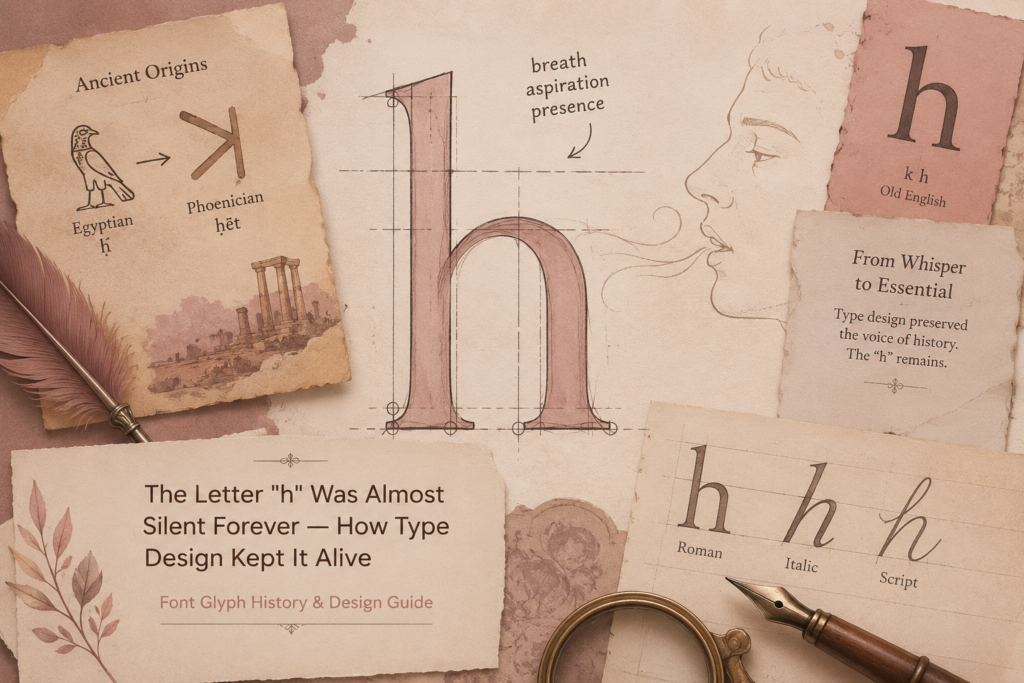
“h” has an odd reputation: in plenty of languages and even in some English words, it barely makes a sound at all. Yet visually, it’s one of the most stable, structurally simple letters in the entire lowercase alphabet — a shape that’s changed remarkably little in over a thousand years of writing.
A Short History of “h”
“h” traces back to the Phoenician letter heth, believed to represent a fence, a wall, or possibly a courtyard enclosure — accounts vary, but the idea of a barrier or enclosed structure recurs across interpretations. In Phoenician and early Semitic languages, the letter represented a guttural, breathy consonant sound produced deep in the throat.
When the Greeks adopted the letter, something unusual happened: in most Greek dialects, that guttural sound didn’t really exist, so the letter’s original consonant value became unstable. Eventually, in the Greek alphabet used to write Ionic Greek, the letter was repurposed entirely to represent a long “e” vowel sound and renamed eta — a striking transformation, since it moved from consonant to vowel. Western Greek dialects, on the other hand, kept a version of the letter functioning closer to its original consonant role, and it was this western tradition that the Etruscans and then the Romans inherited, which is why Latin “H” ended up as a consonant rather than a vowel.
The Romans kept the letter’s basic shape — two vertical strokes joined by a horizontal crossbar — largely unchanged, and it has stayed remarkably consistent ever since. Lowercase “h” emerged the way most lowercase letters did, through medieval scribes writing quickly by hand, but visually it required very little simplification from the capital form. The main change was extending one of the two vertical strokes upward into a full ascender while keeping the other at x-height, transforming the boxy capital into the taller, more flowing shape used in running text.
Anatomy of a Lowercase “h”
Lowercase “h” consists of an ascender — the tall vertical stroke rising above the x-height — followed by a shoulder, a curved stroke that branches off partway down the ascender, and a stem, the shorter vertical stroke at x-height that the shoulder connects into.
The shoulder is the most expressive part of the letter and the one that varies most between typefaces. In many serif designs, it curves smoothly out of the ascender like a small arch; in more geometric sans-serifs, it can be a tighter, more angular curve, sometimes almost a straight diagonal. The exact point where the shoulder branches off the ascender, and how far it extends before dropping down into the stem, both affect how open or compact the letter feels.
“h” shares this same ascender-plus-shoulder-plus-stem structure with “m” and “n,” making these three letters a closely related family in type design. In fact, “n” is often treated as a truncated version of “h” — remove the ascender, and what’s left is essentially the shape of “n.” “m” extends the pattern further, adding a second shoulder-and-stem combination side by side. Because of this relationship, designers frequently draw “n” first, then build “h” and “m” from the same underlying shoulder curve to keep the family visually consistent.
Designing the Letter From Scratch
Most type designers draw “n” before “h,” since “n” establishes the core shoulder curve and stem width that both “h” and “m” will reuse. Once “n” is finalized, “h” is essentially “n” with an ascender grafted onto the left stroke.
The tricky part isn’t the shoulder itself — that’s already been solved in “n” — it’s making sure the ascender height and weight match the rest of the ascending letters in the typeface: “b,” “d,” “k,” and “l.” If the ascender is even slightly off in height or thickness compared to those letters, “h” will visually stick out or sink in a line of text, disrupting the rhythm readers rely on without consciously noticing it.
Designers also double-check the point where the shoulder meets the ascender, since this junction needs to look intentional rather than like a curve was simply pasted onto a straight line. Getting this transition to flow naturally, especially in serif designs where the ascender may include some contrast in stroke weight, takes careful adjustment.
Once “h” is finished, it typically gets checked against “m,” since any inconsistency between the two — a slightly different shoulder curve, a different stem width — becomes obvious the moment they appear near each other in real words.
Unique Facts About “h”
In several languages, “h” is either silent or nearly silent in a large percentage of words where it appears — French and Italian both have long traditions of “mute h,” and English keeps a handful of holdovers too, in words like “honest” and “hour.” Despite this, the letter has never been at risk of disappearing typographically, since its visual role in word recognition remains just as important as any pronounced letter.
“h” is also notable for lending its shape to a few other characters and symbols across different writing systems and phonetic alphabets, where an ascender-and-shoulder shape similar to Latin “h” shows up in some entirely unrelated scripts, likely because it’s simply an efficient, easy-to-write shape for a tall consonant.
Structurally, “h” is one of the easier letters to design well, since it shares its shoulder curve with “n” and “m” — solve that curve once, and all three letters mostly fall into place together.